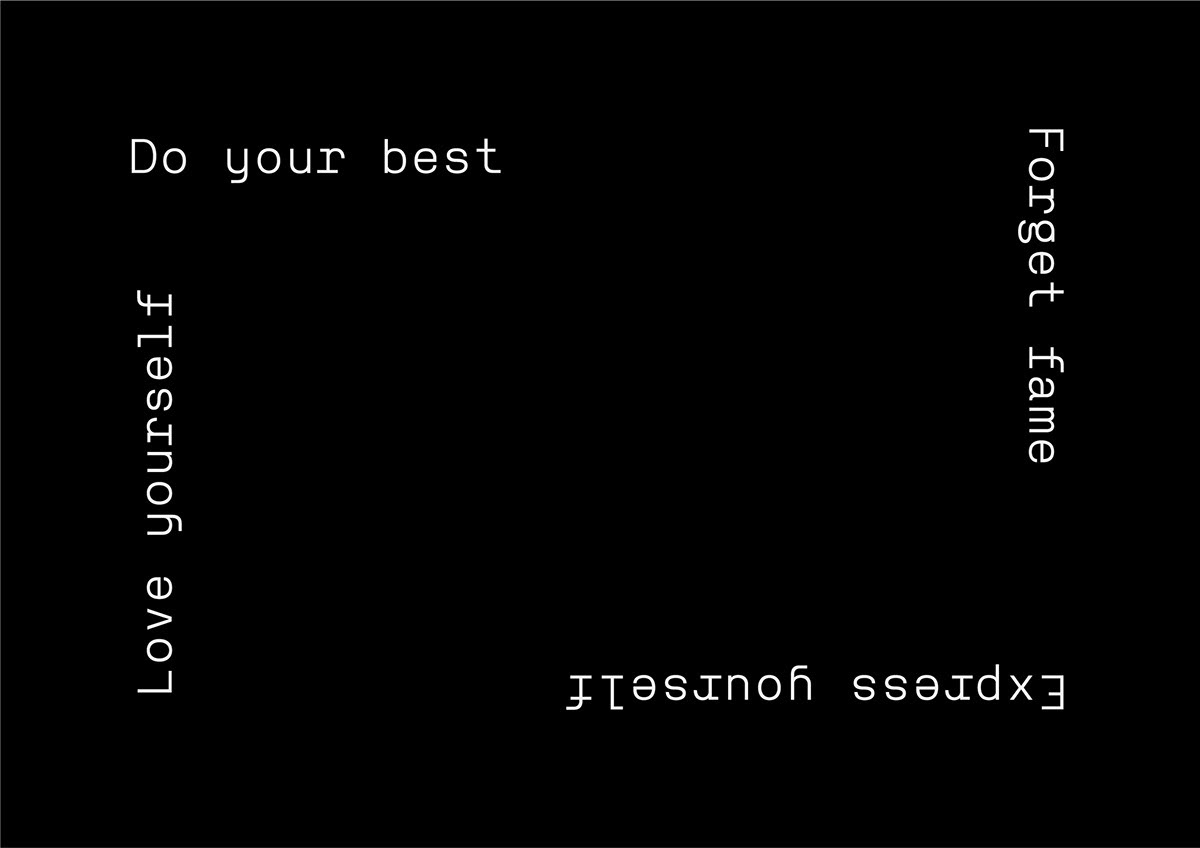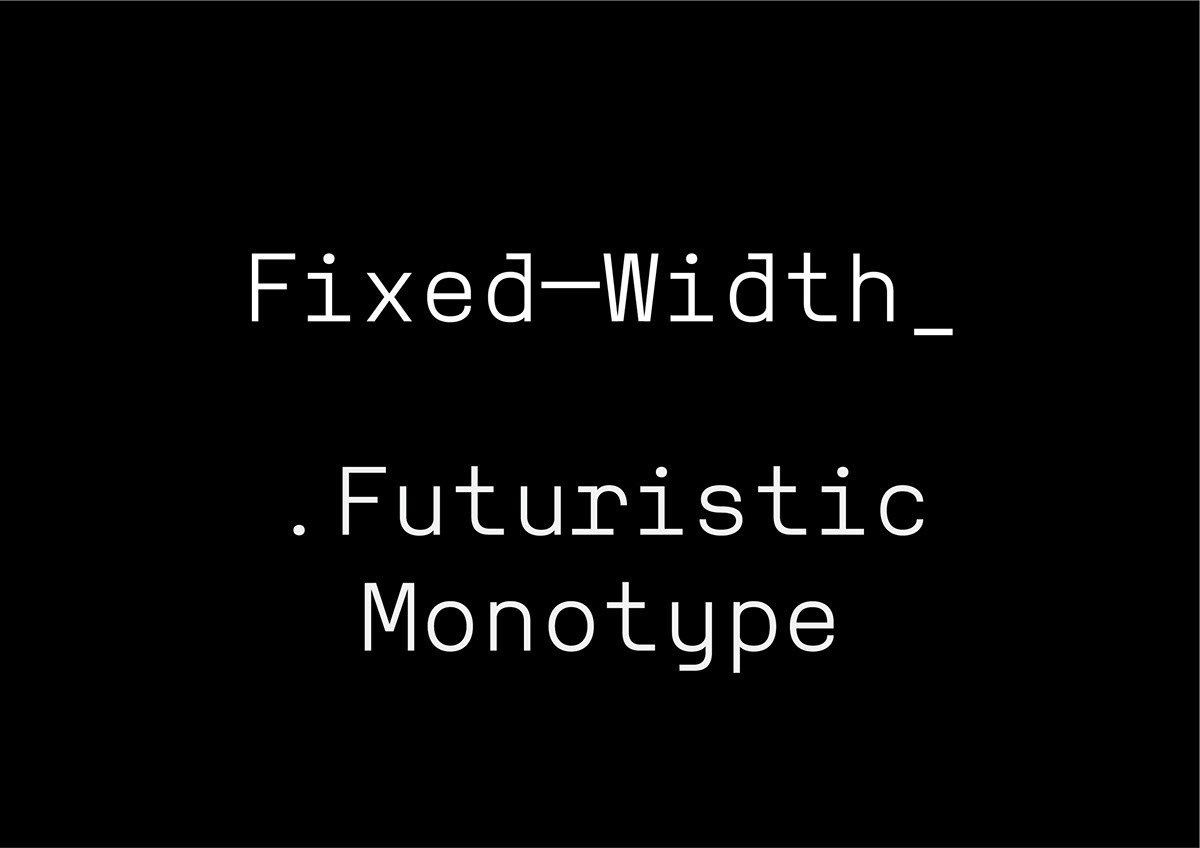
Reno Mono Free Font
This is Reno Mono, a free, regular fixed-width font designed to be used as a webfont while also providing a memorable imprint when printed on paper. The mono-spaced and letter shapes rhythm allows for both warmth and precision while keeping an optimal readability in small screen sizes.